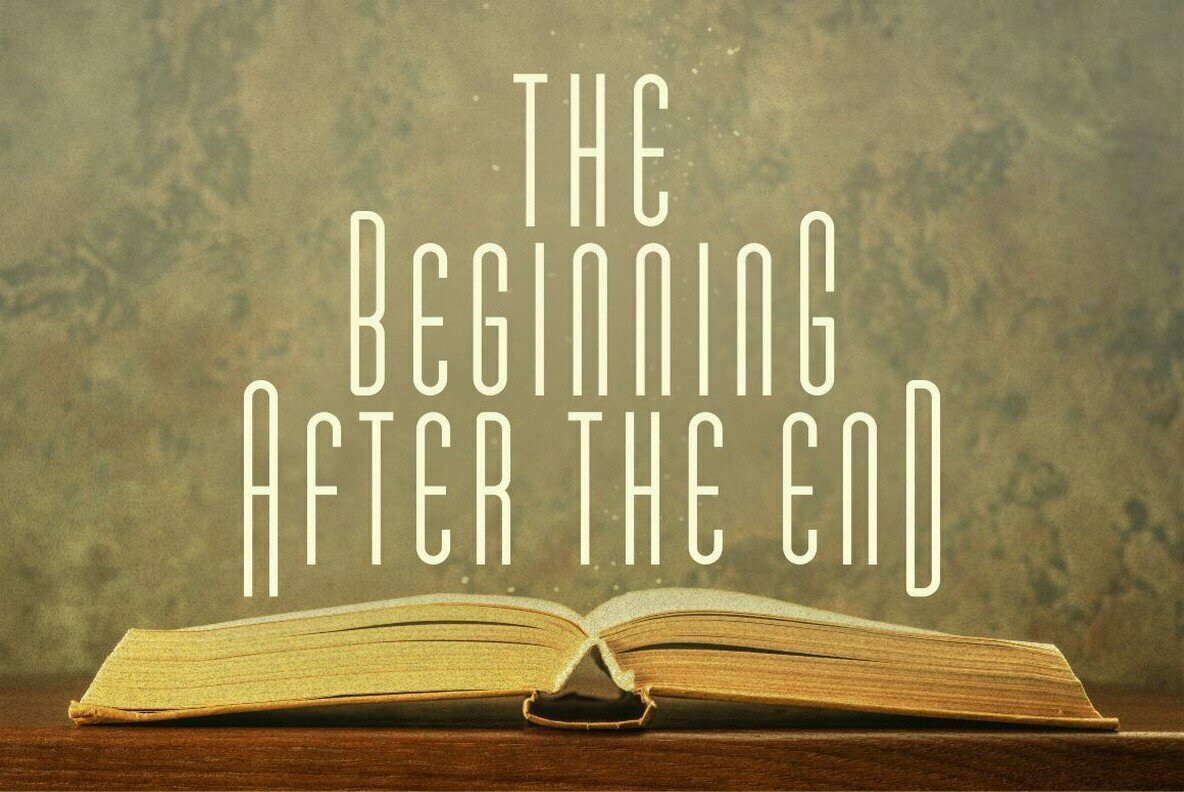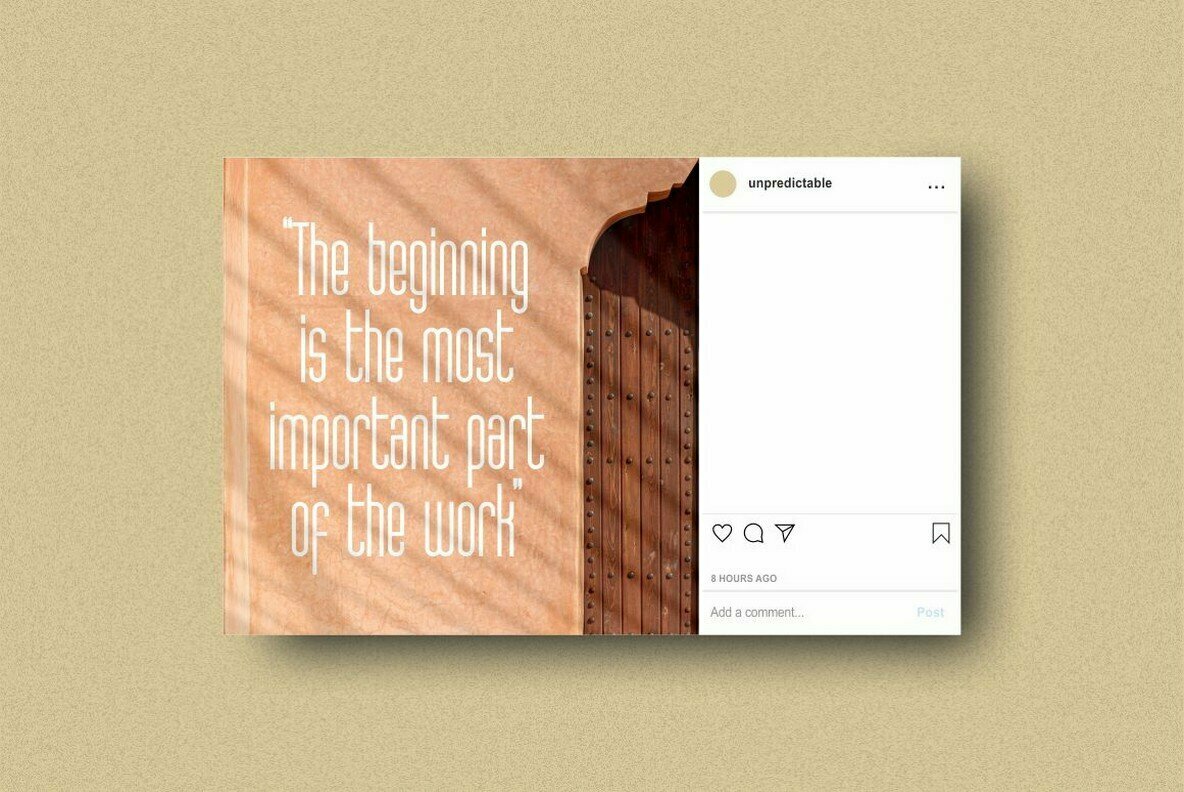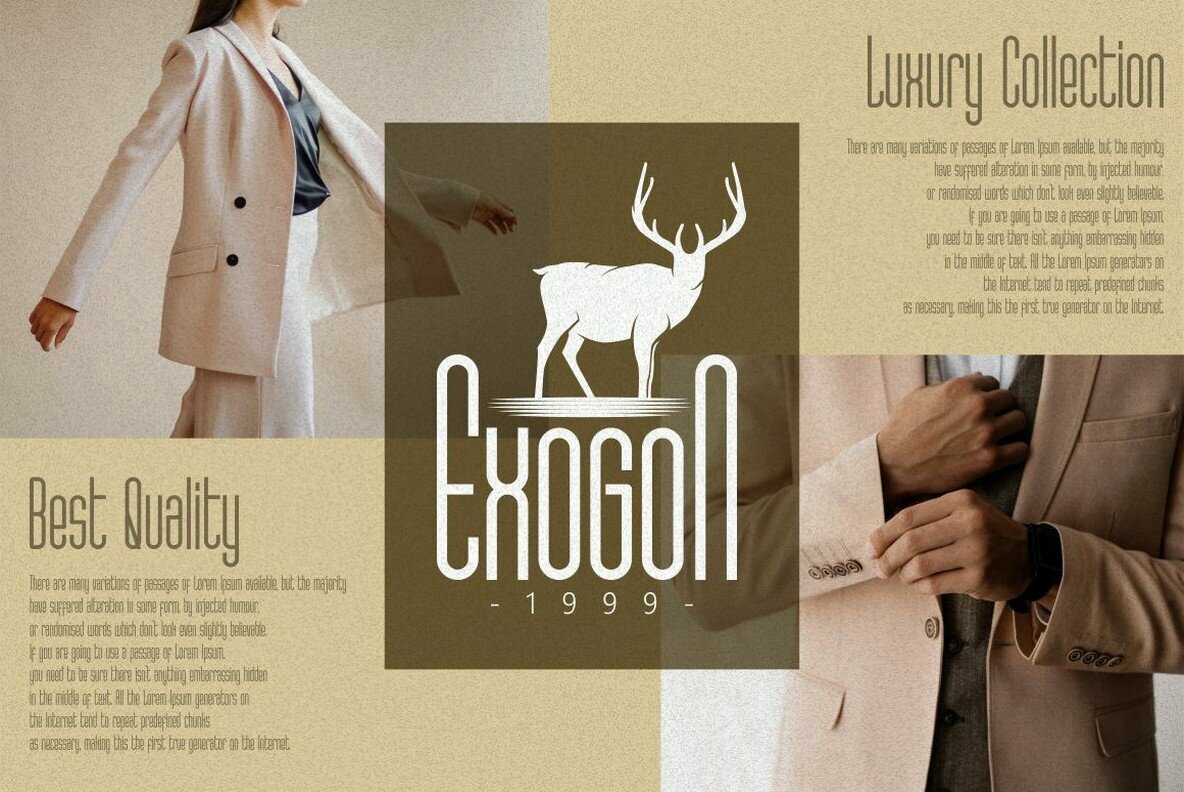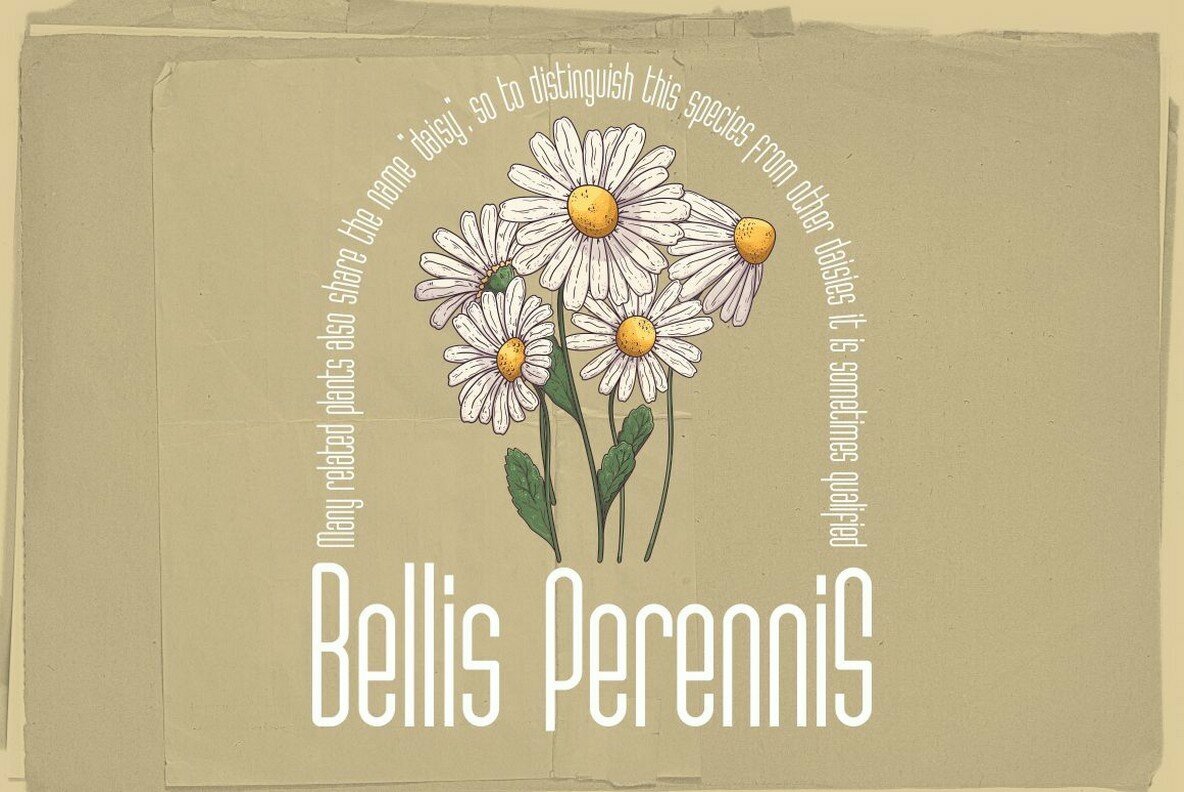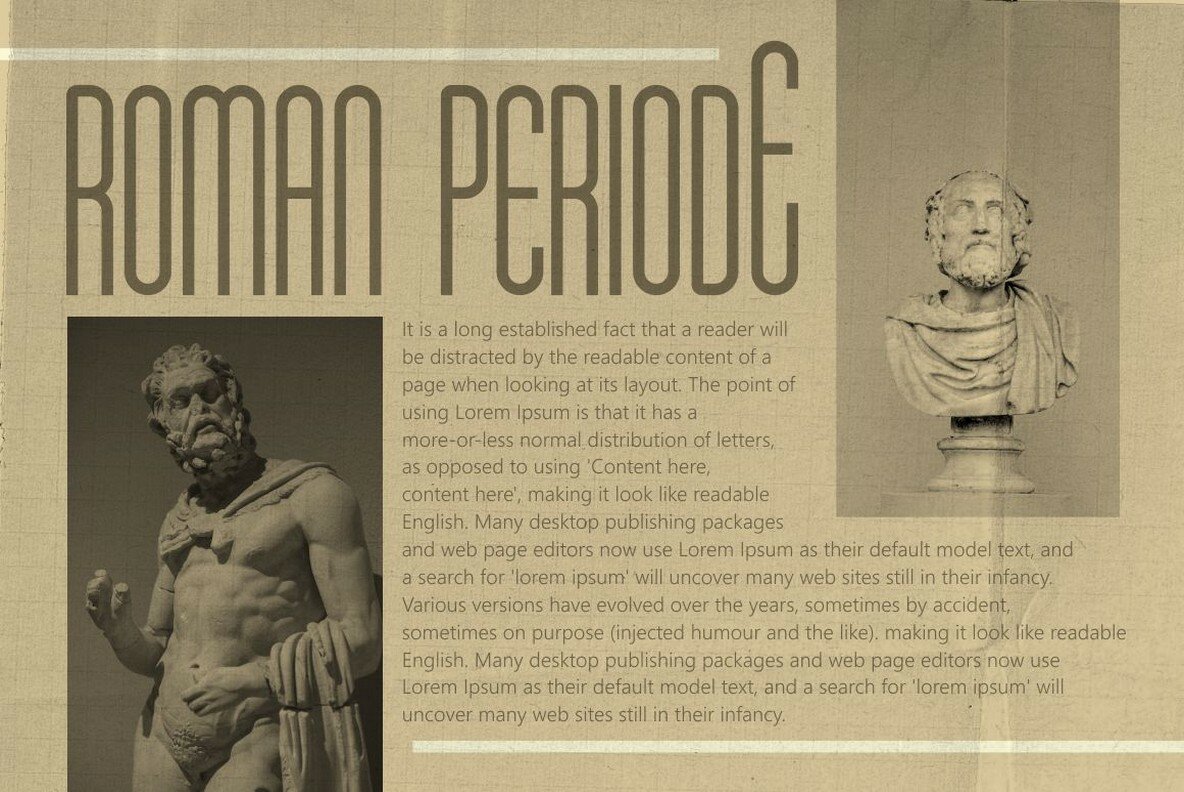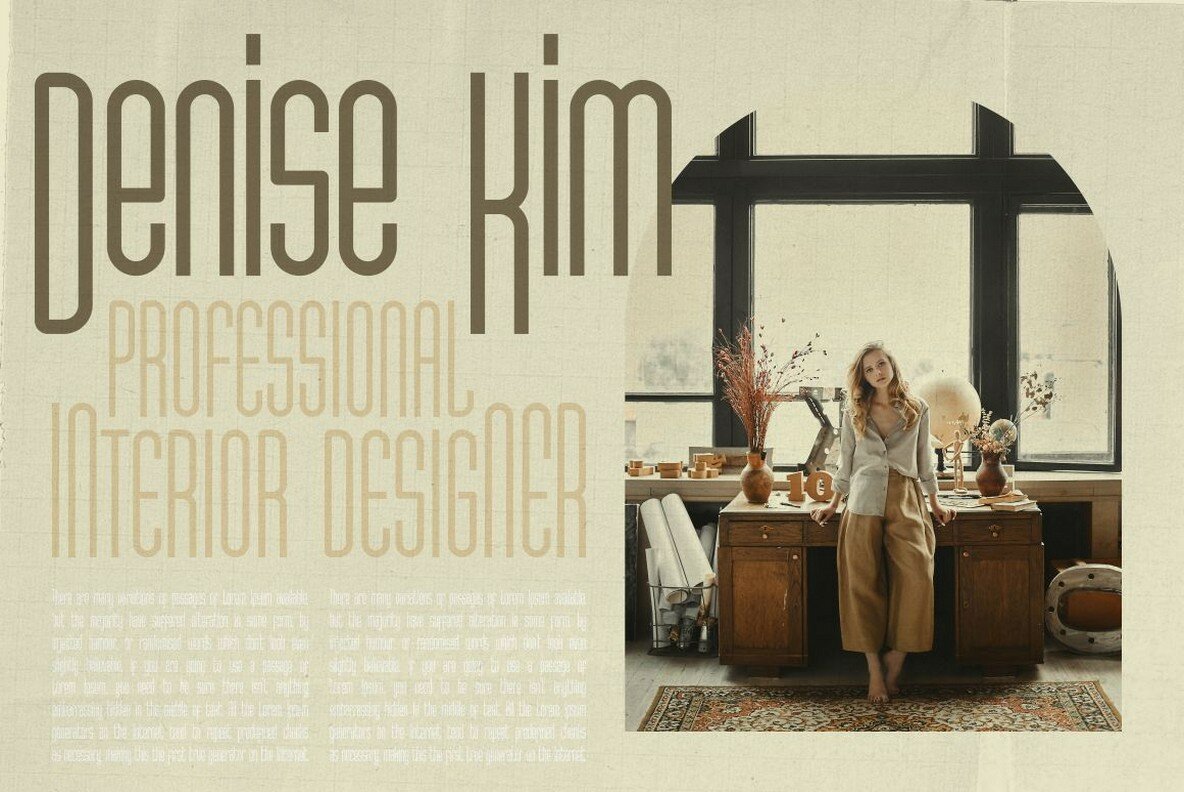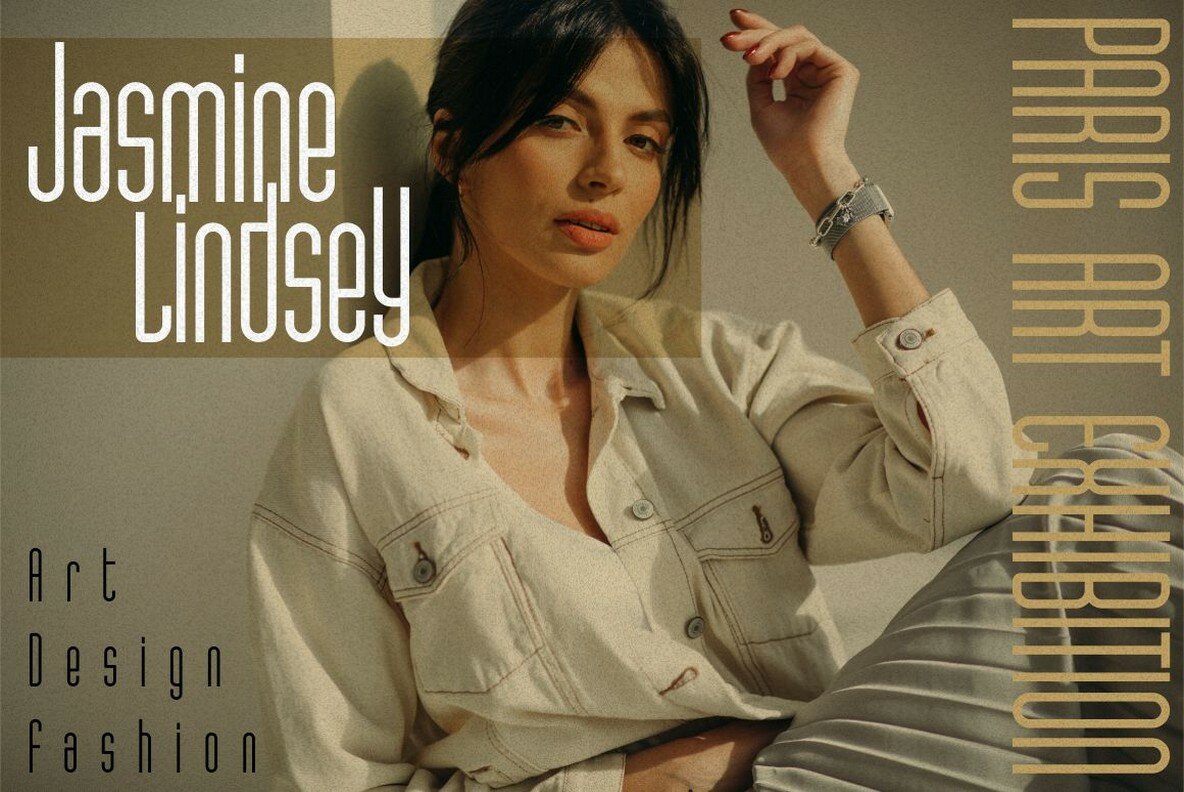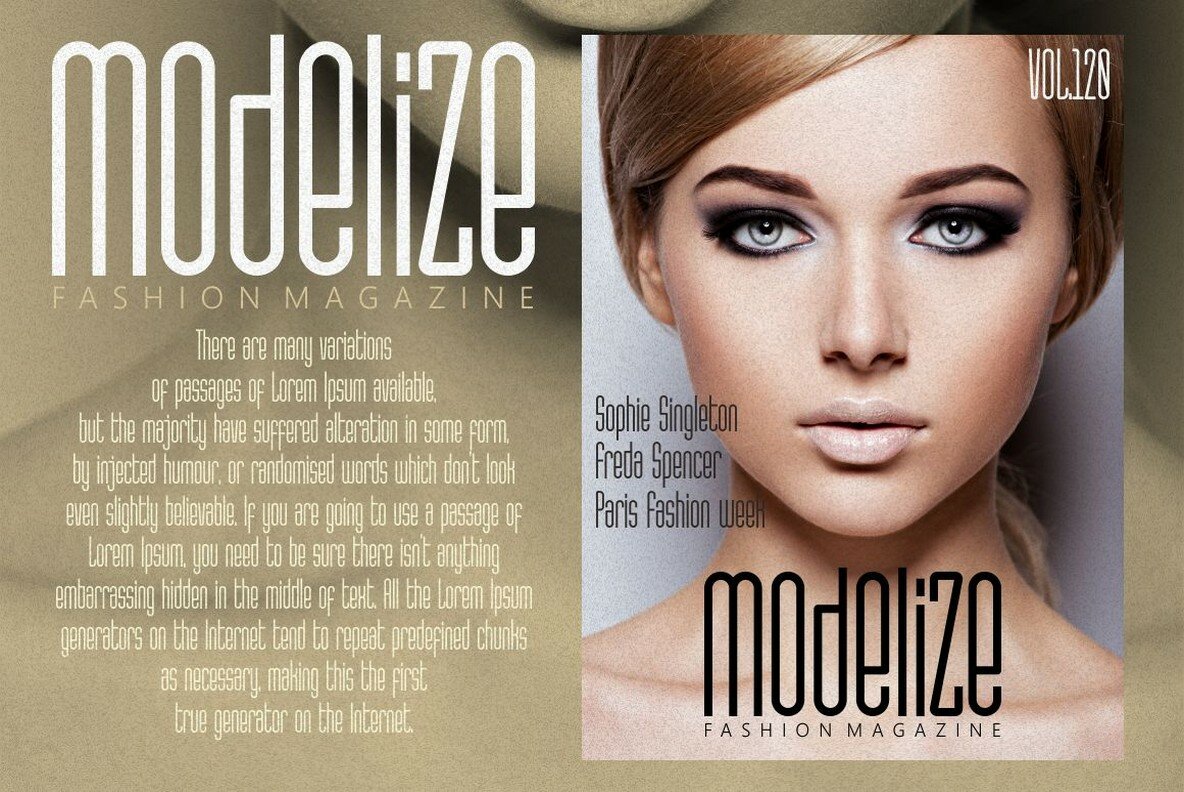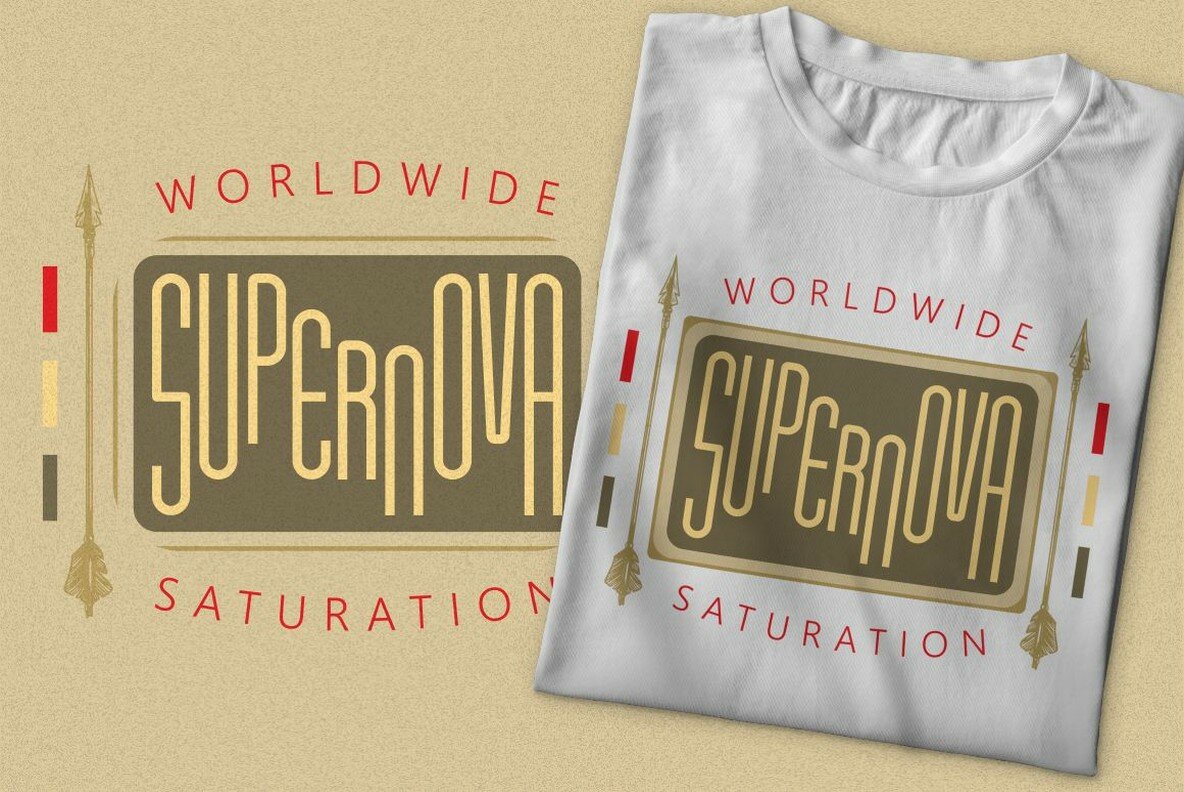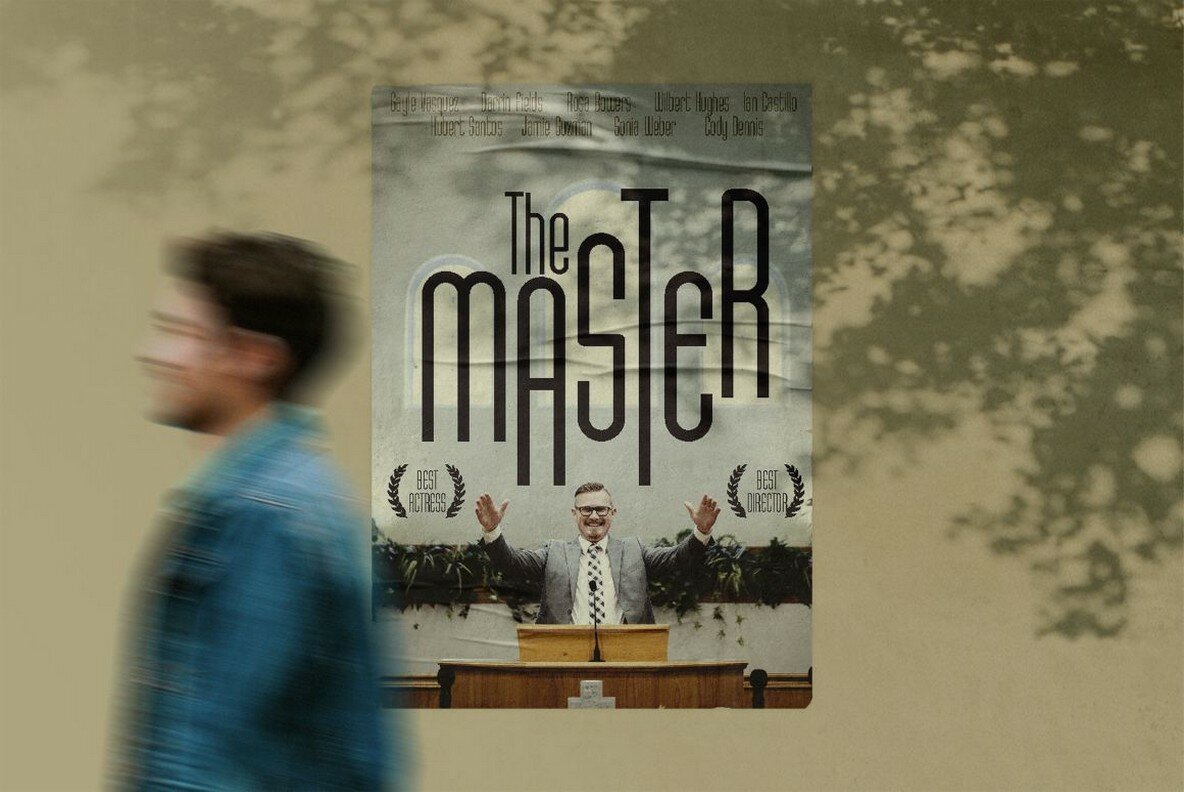
Unpredictable is a display sans font with variations of different heights and baseline position.
In this font there are several heights and baselines that you can combine. For height (normal, low, and high), for the baseline (normal, above and below).